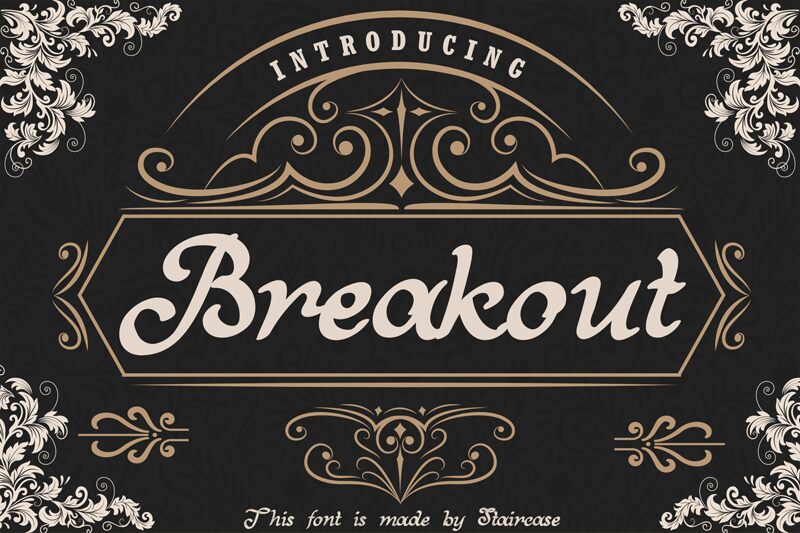
Breakout
Breakout, a creation by Inermedia Studio, captures the essence of personality and flair in its handwritten style. This font boasts an effortless elegance with its flowing, interconnected letters that evoke the charm of bespoke calligraphy. The subtle irregularities in stroke weight and fluidity lend it an authentic human touch that stands out in digital spaces craving warmth and individuality.
The aesthetic appeal of Breakout lies in its balance between readability and artistic expression. It's designed to add a personal, handcrafted dimension to any project without sacrificing clarity. Breakout's stylish artistry makes it particularly suitable for invitations, branding, advertising materials, and social media graphics where a touch of sophistication is desired.
Embracing versatility, Breakout transitions seamlessly from casual to formal contexts, ensuring designers have a go-to font for a wide array of creative endeavors. Whether you're crafting heartfelt wedding stationery or looking to infuse your logo with characterful elegance, Breakout is poised to elevate your design work with its unique handwritten charm.